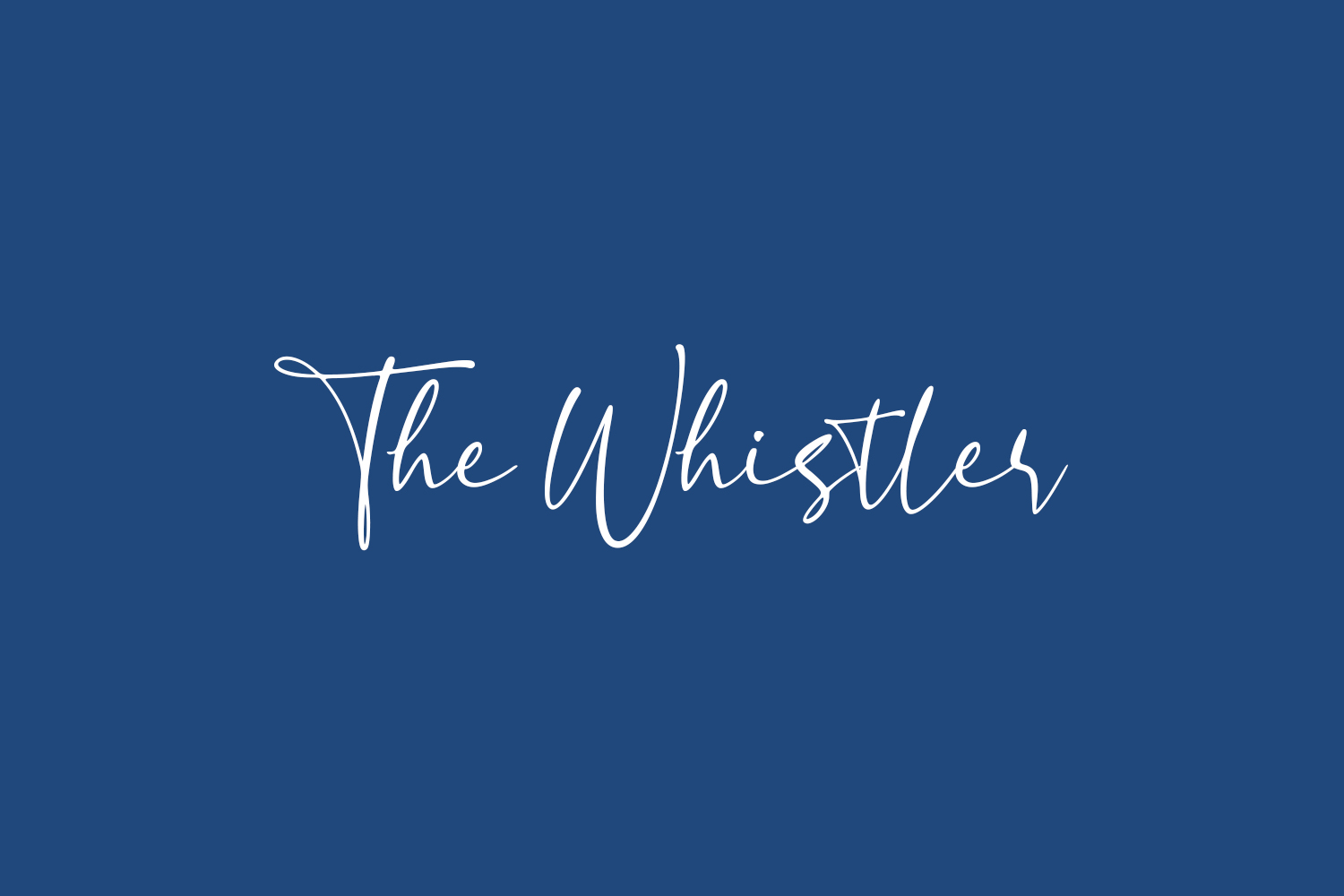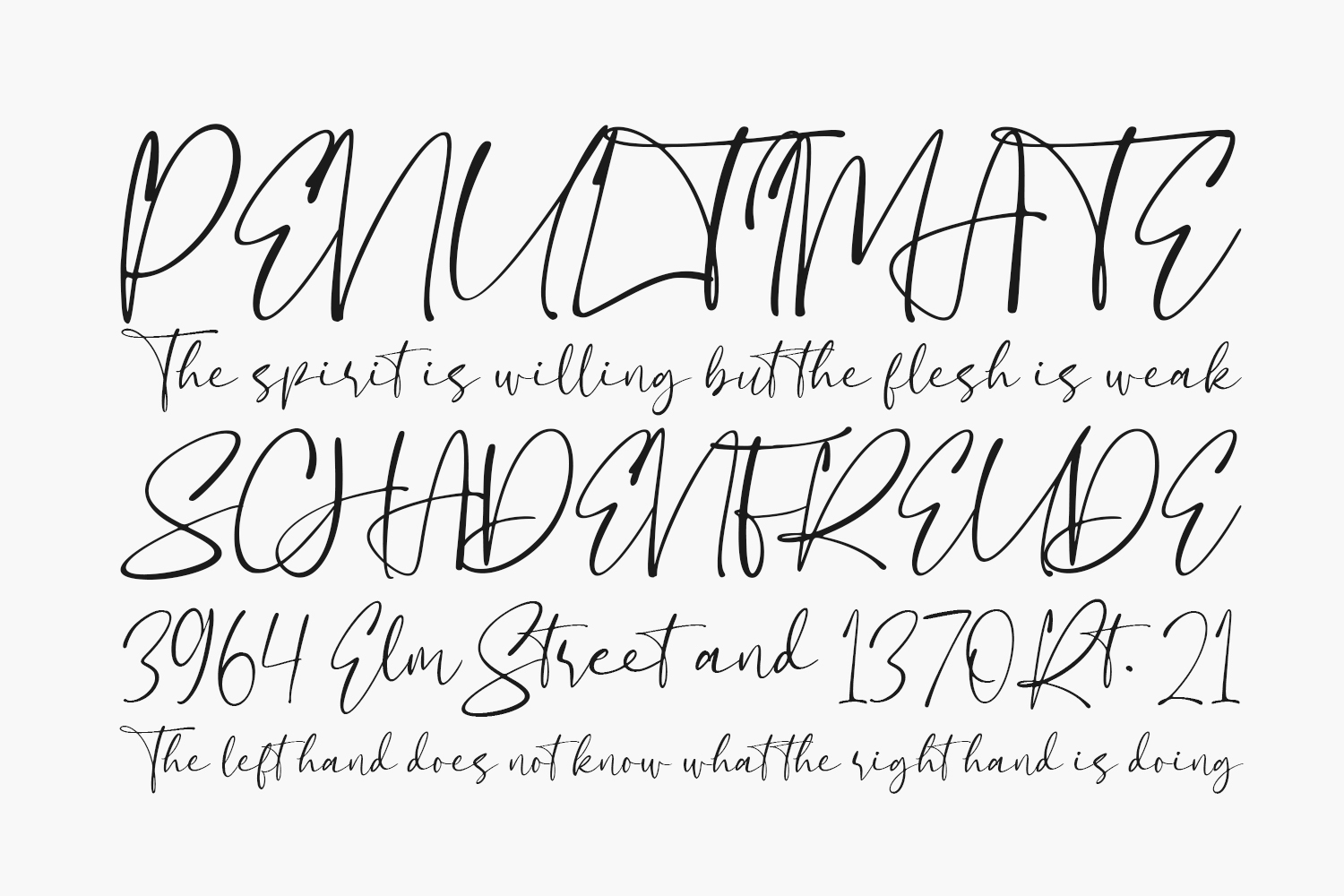
The Whistler Free Font is a casual and relaxed handwritten font. This versatile script font has a wide spectrum of applications ranging from greeting cards to headlines and is guaranteed to add a romantic feel to your next project. The Whistler Free Font was designed by Abas Creative and is free for personal use only. Please purchase the full version for commercial use.